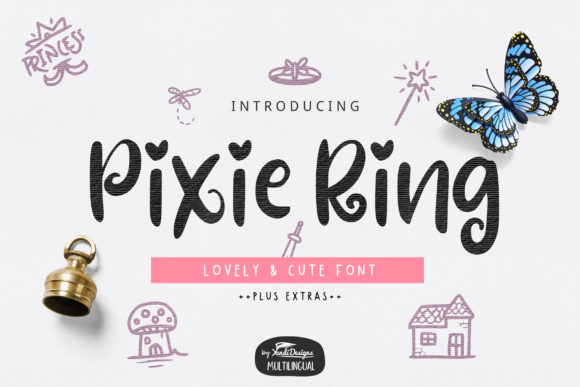
Pixie Ring Font
Dive into the realm of creativity with Pixie Ring Font, a whimsical and enchanting sans serif font family that will ignite your imagination. Designed by the talented hands of YandiDesigns, this font exudes a playful charm that will captivate your audience.
With its delightfully cute and lovely appearance, Pixie Ring Font is the perfect choice for adding a touch of magic to your designs. Be it cards, posters, website headers, or any other creative project, this font will make a statement and leave a lasting impression.
Step into a world of endless possibilities with Pixie Ring Font. Its wide range of designing applications makes it a versatile tool for any designer, illustrator, or artist. Unleash your creativity and make your designs come alive with this captivating font.
Transport yourself to a realm where cuteness reigns supreme. Pixie Ring Font features charming dingbats alternates that will add an extra layer of whimsy to your designs. Engage your audience with playful elements that evoke joy and ignite their imagination.
With Pixie Ring Font, you'll discover a font that goes beyond mere aesthetics. It's a gateway to a world of emotions, where your designs speak volumes and create a lasting connection with your audience. Experience the magic of this enchanting font and let your creativity soar.
Make Pixie Ring Font your secret weapon for creating designs that resonate with your audience. Embrace its playful spirit, let your imagination run wild, and watch your projects blossom into masterpieces.